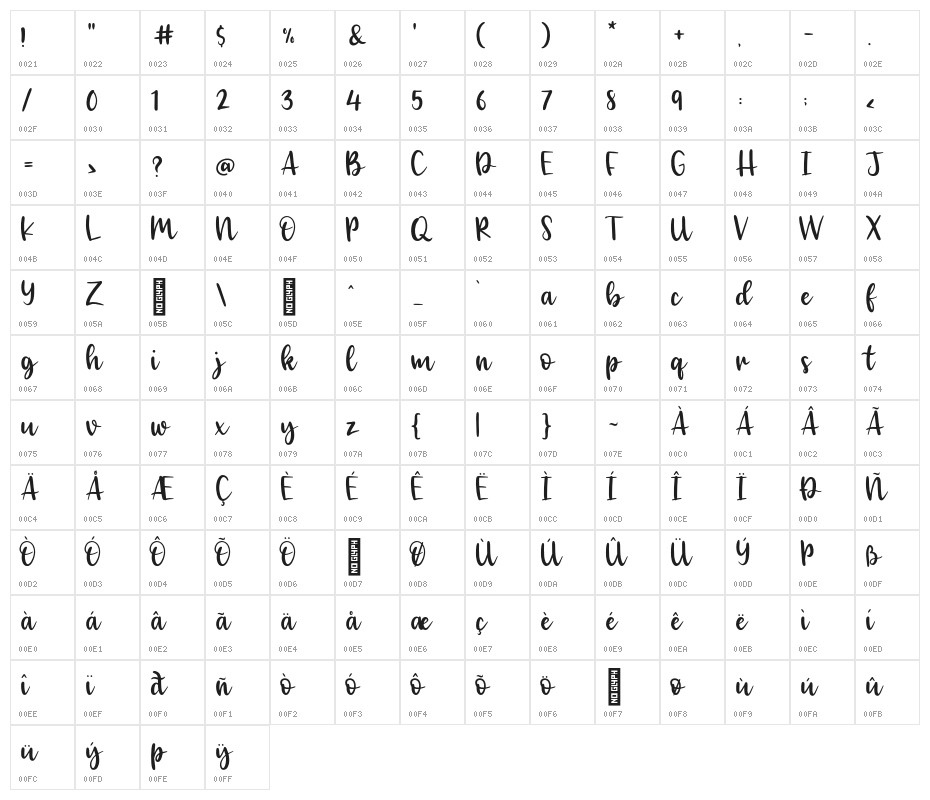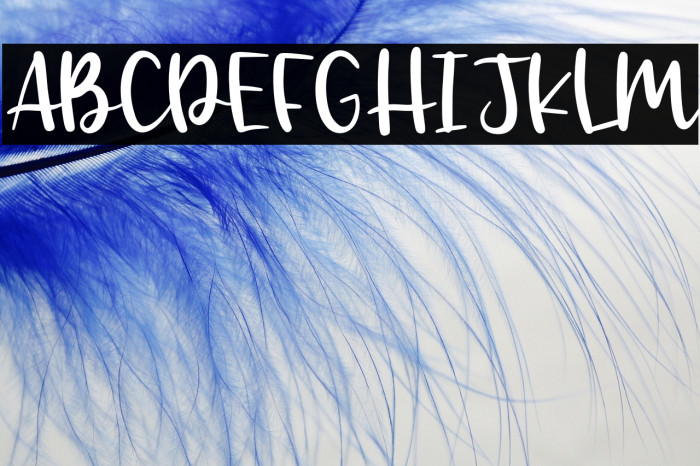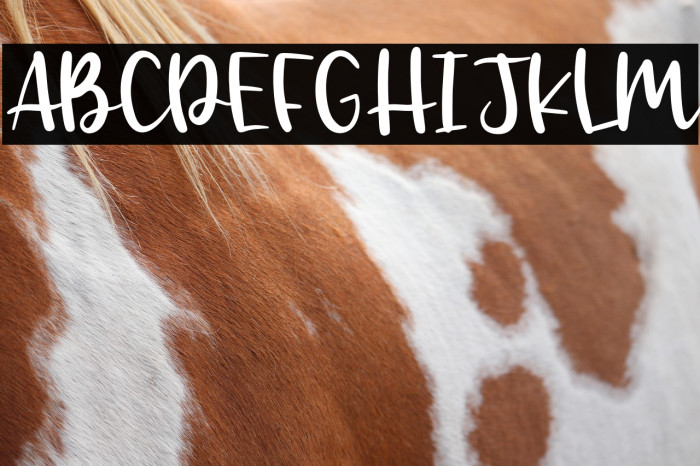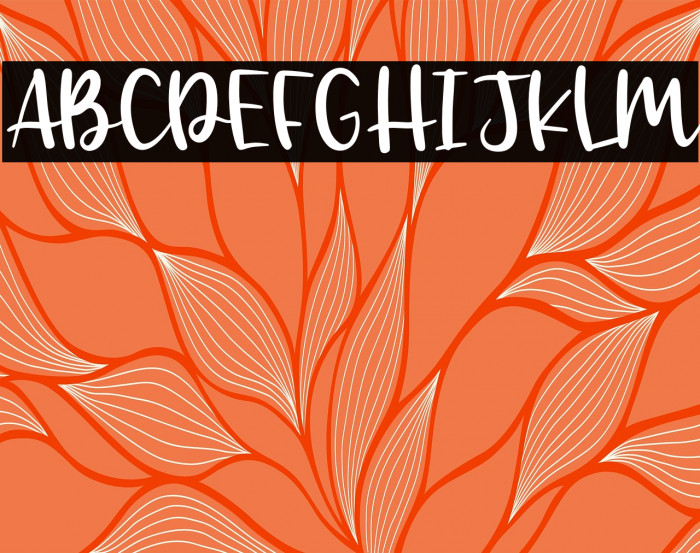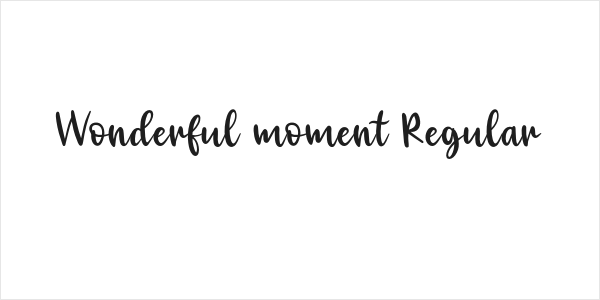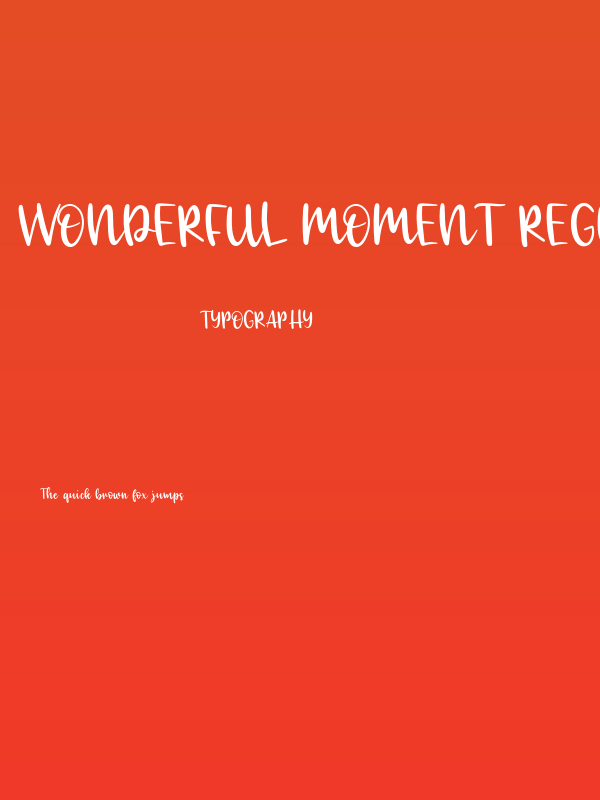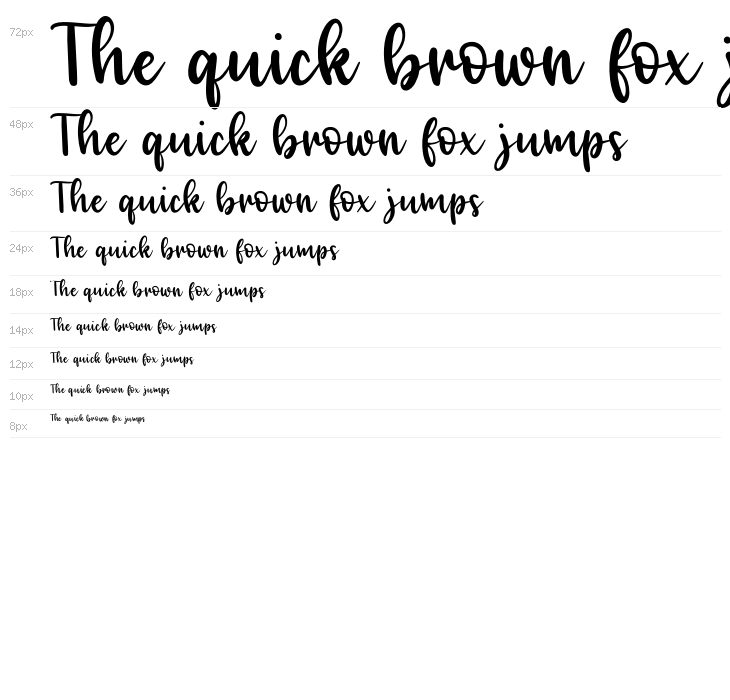
Wonderful moment Regular Font
Wonderful moment Regular Description
This font exudes a playful and energetic vibe with its handwritten style. The characters are bold and slightly slanted, giving a sense of movement and fluidity. Each letter has a unique flair, with varying stroke thickness that adds to its dynamic appearance. The uppercase letters are tall and expressive, while the lowercase letters maintain a consistent flow, enhancing readability. The numbers and special characters are crafted with the same lively spirit, making them suitable for creative projects. The overall design is both modern and whimsical, perfect for adding a personal touch to any text.
Use CaseHeadlines, Logos, Invitations
Proposed ProjectsIdeal for greeting cards, invitations, posters, and branding materials that require a personal and lively touch.